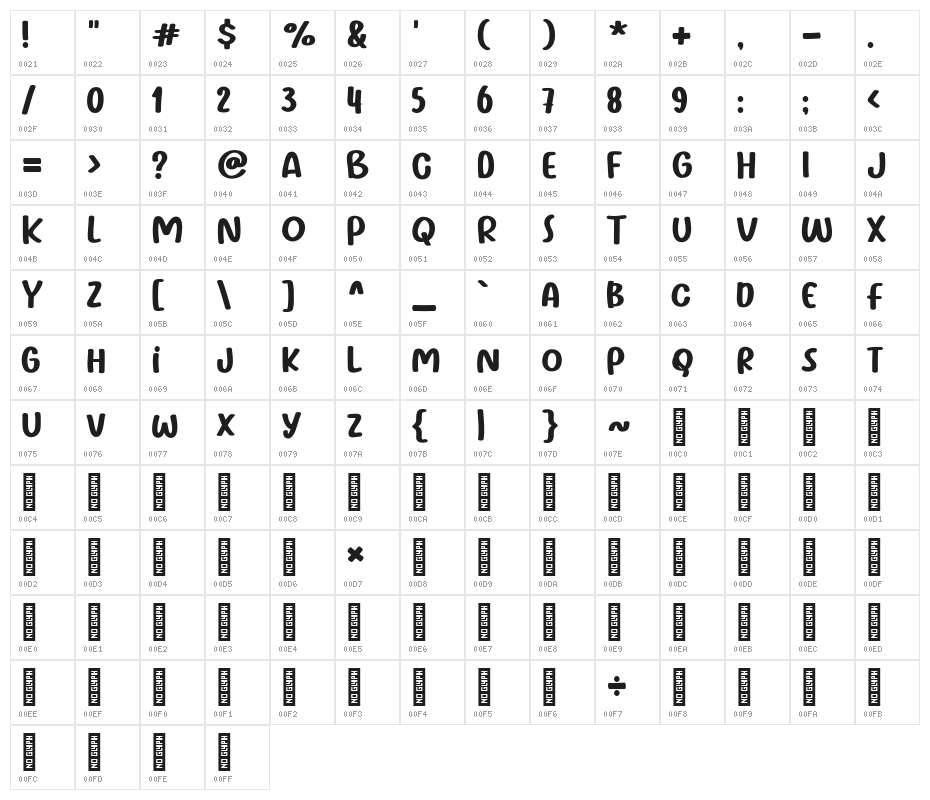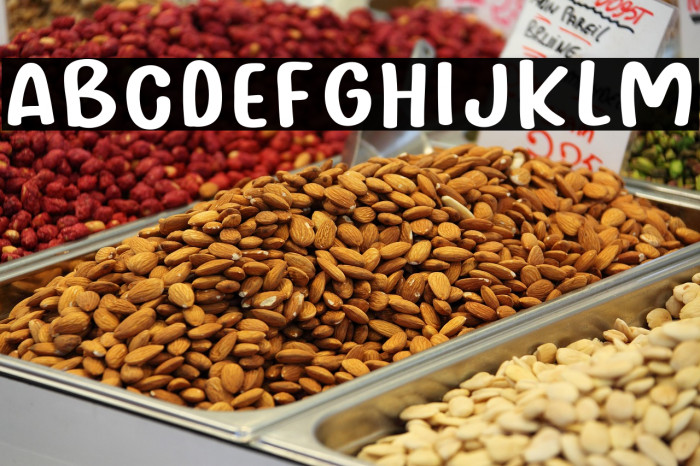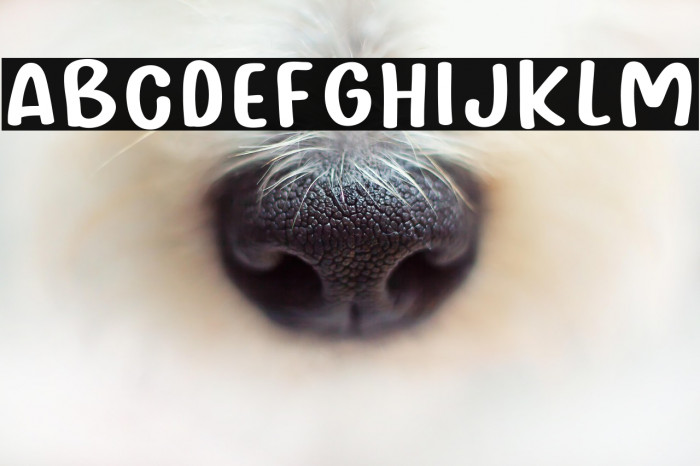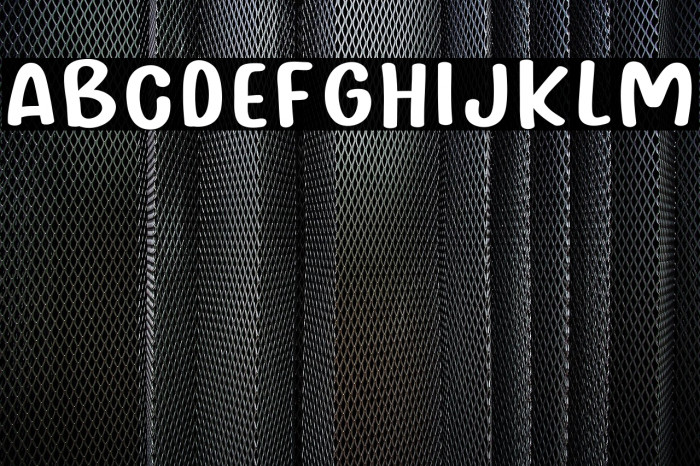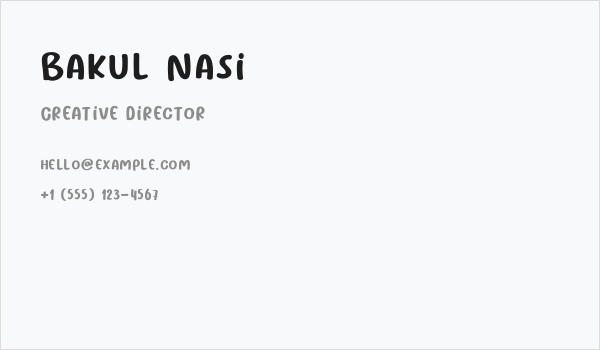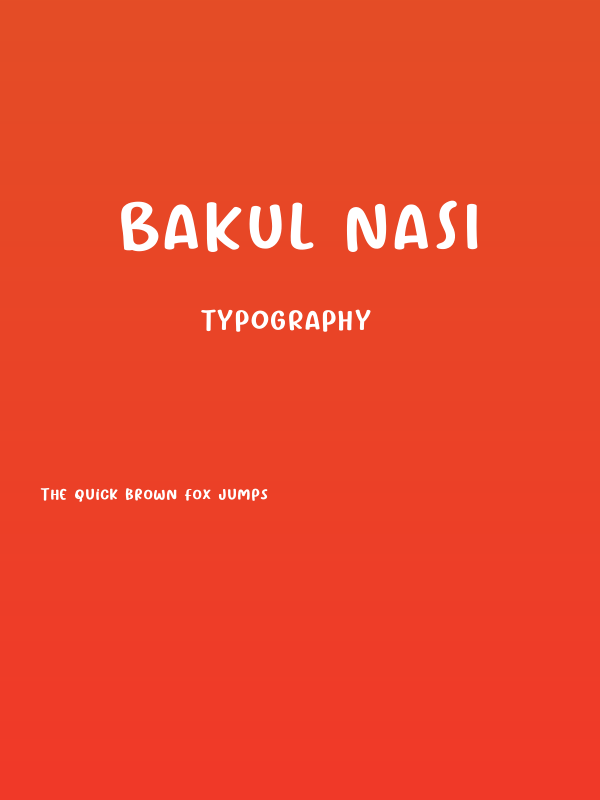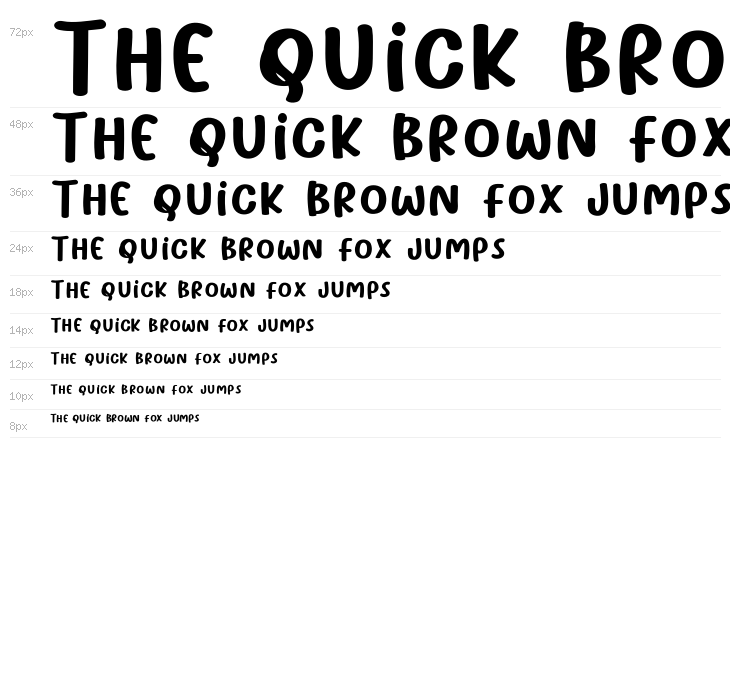
Bakul Nasi Font
Bakul Nasi Description
This font features a playful and bold handwritten style, characterized by its rounded and slightly irregular letterforms. The uppercase and lowercase letters maintain a consistent weight, giving the font a cohesive and friendly appearance. The numbers and special characters follow the same design principles, ensuring uniformity across all glyphs. The strokes are thick and smooth, contributing to a casual and approachable aesthetic. This font is well-suited for projects that require a touch of personality and warmth.
| Proposed Projects | Ideal for children's books, greeting cards, playful branding, and social media graphics. |